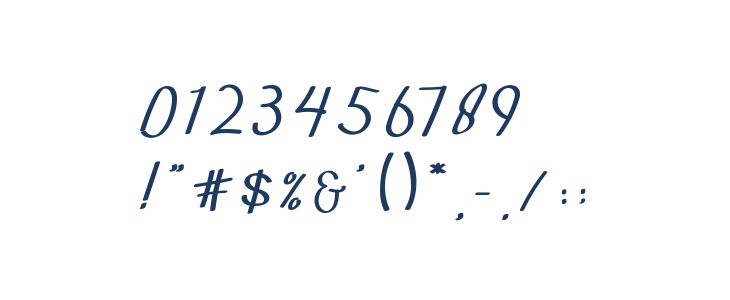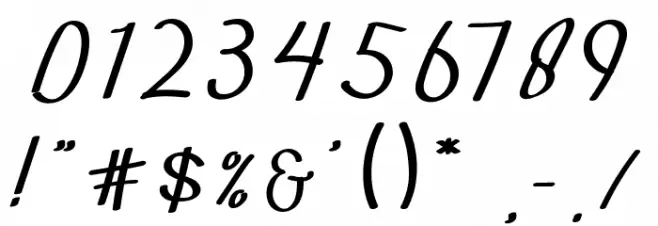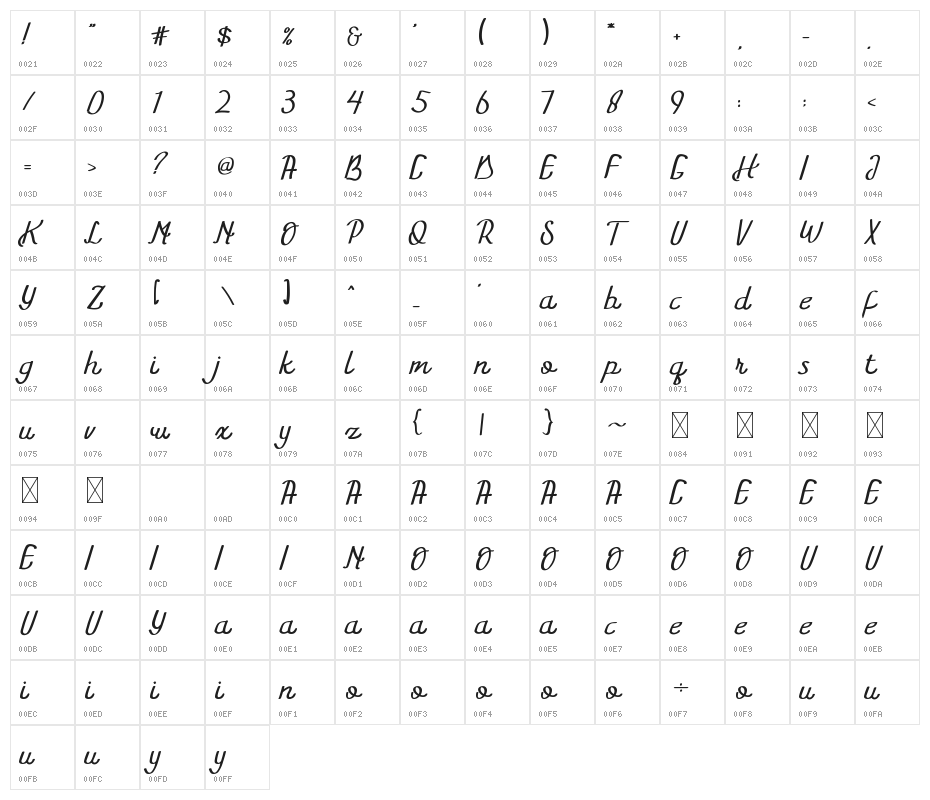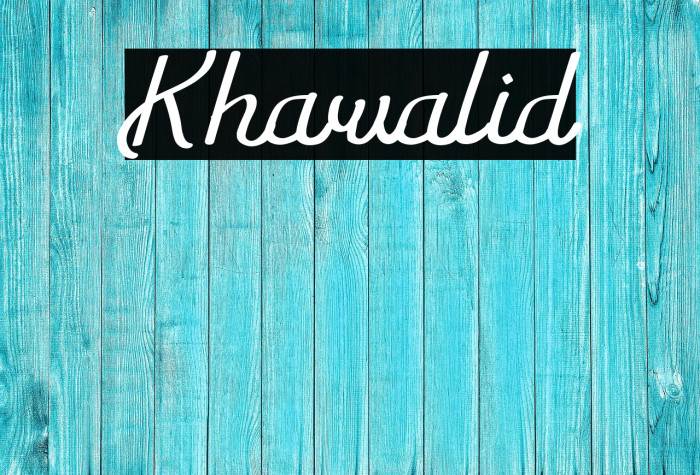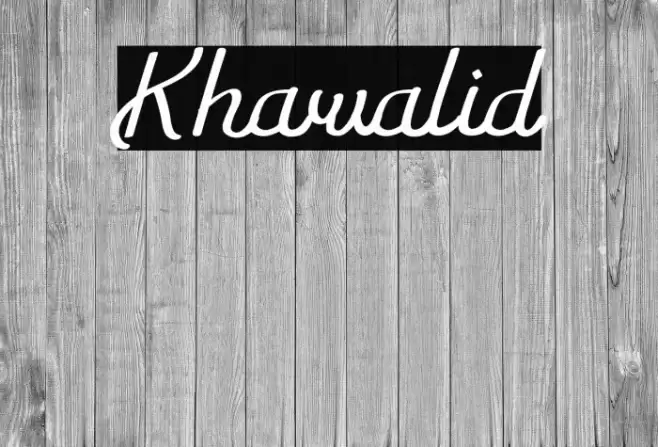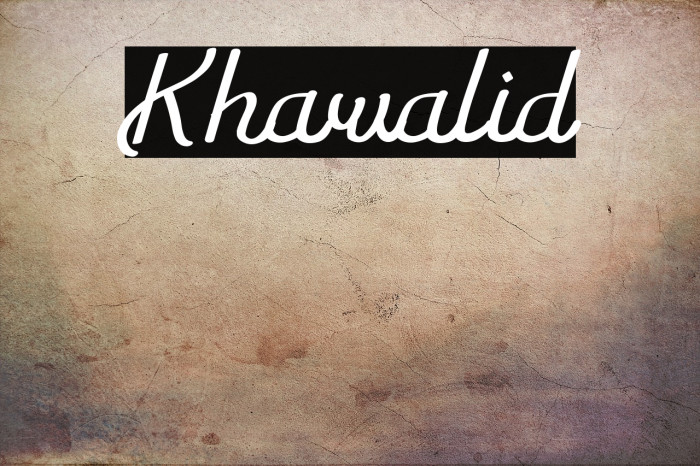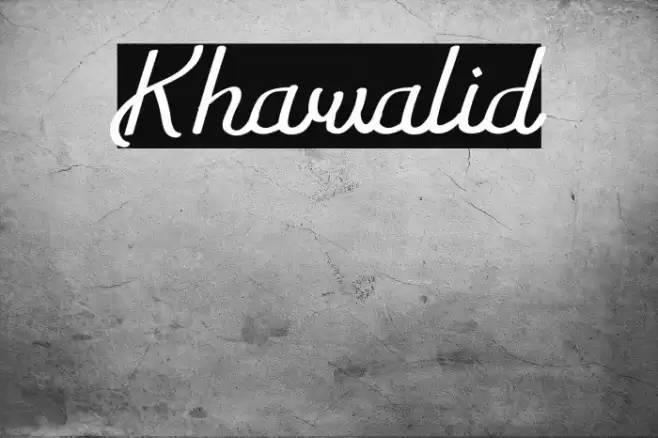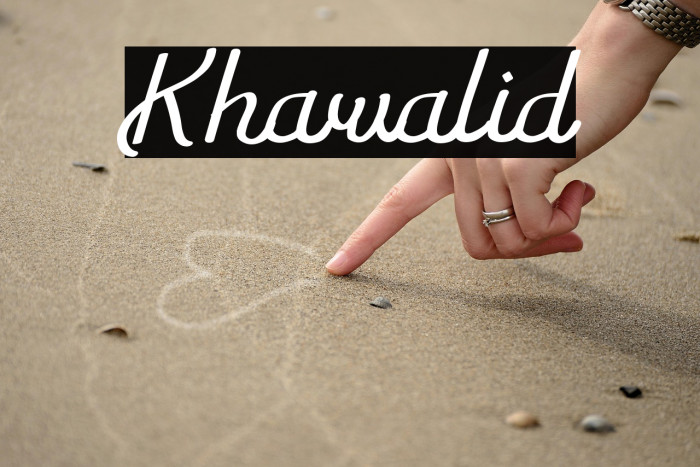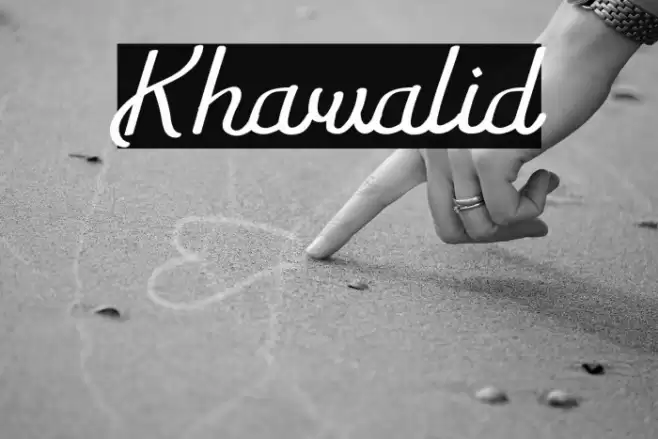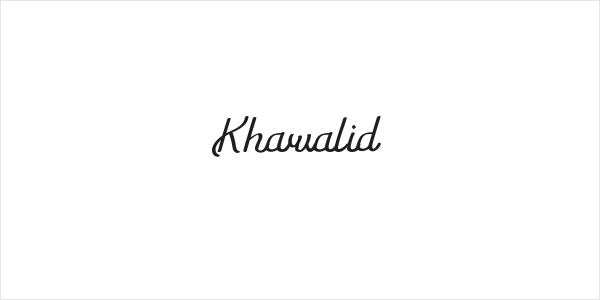
This font features a flowing, cursive style that exudes elegance and sophistication. The letters are connected, giving it a handwritten appearance, yet maintain a uniformity that ensures readability. The uppercase letters are slightly more embellished, with subtle flourishes that add a touch of flair. The lowercase letters are smooth and consistent, with gentle curves that enhance the overall fluidity. Numbers and special characters are designed to match the script style, ensuring a cohesive look across all text. This font is ideal for projects that require a personal, yet polished touch.